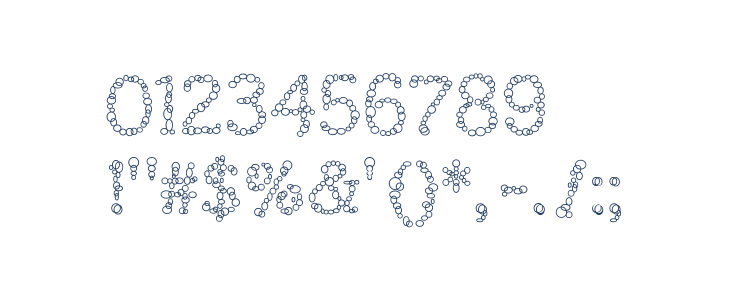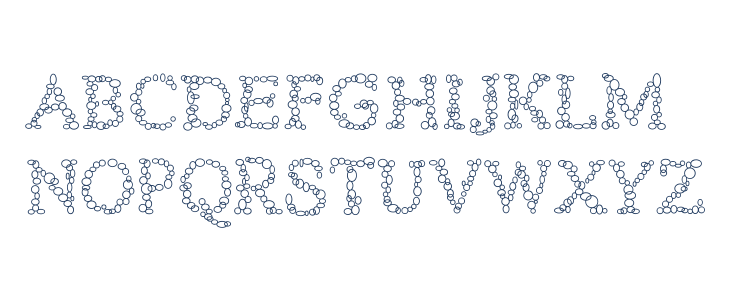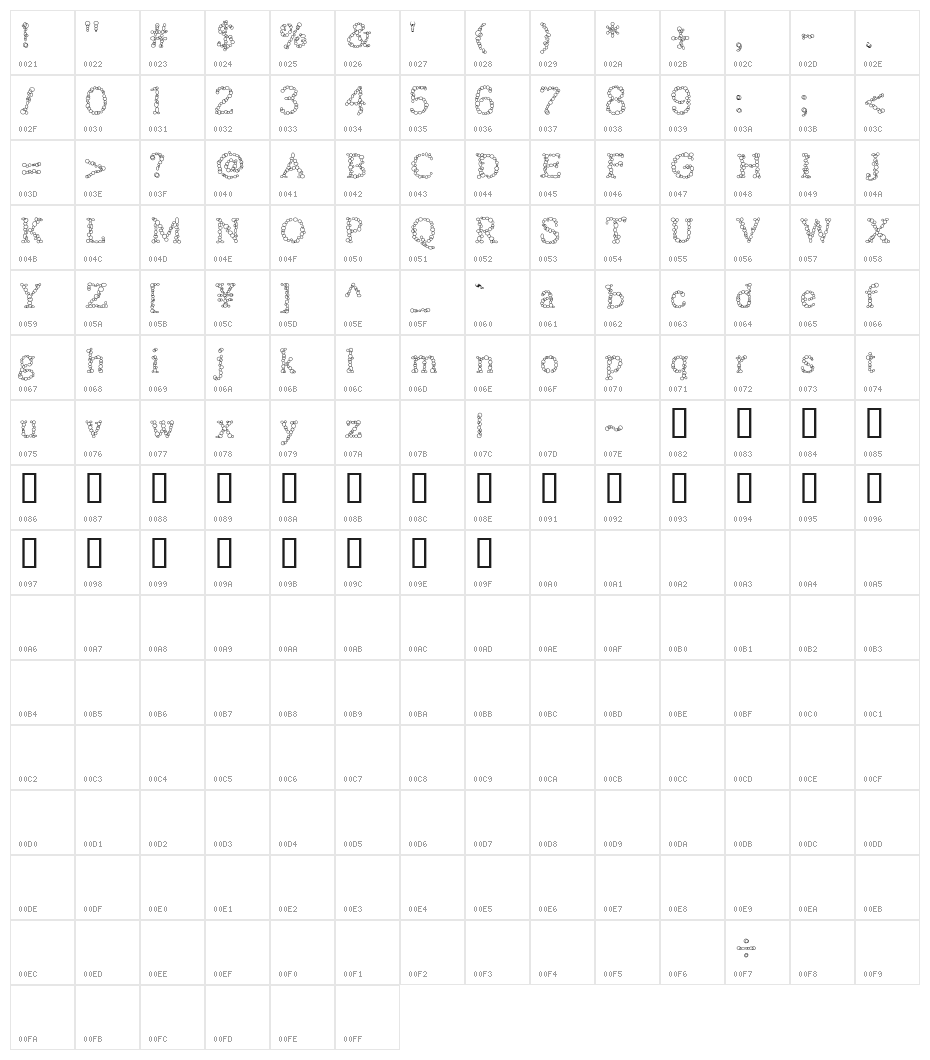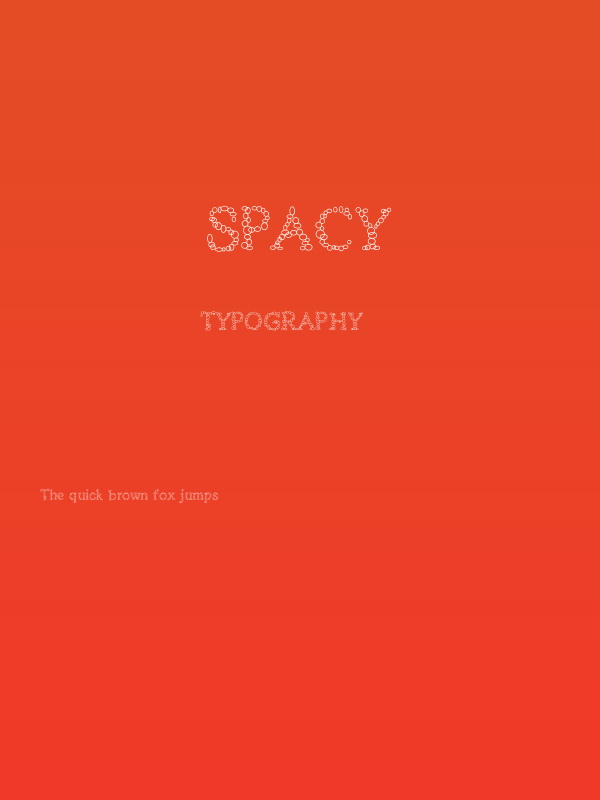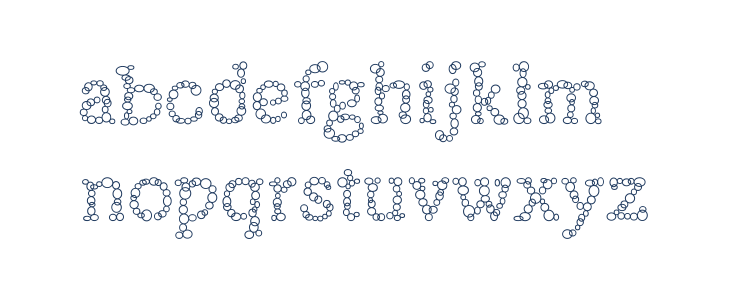
Spacy Font
Spacy Description
A playful, decorative font composed of interconnected circles forming each character, giving a bubbly and whimsical appearance. The outlines are uniform, and the characters are easily distinguishable despite the unconventional construction.
| Overall Style | Playful, Decorative, Whimsical |
| Use Case | Headlines, Posters, Logos, Invitations |
| Proposed Projects | ChildrenΓ’β¬β’s books, party invitations, playful branding, posters, educational materials. |